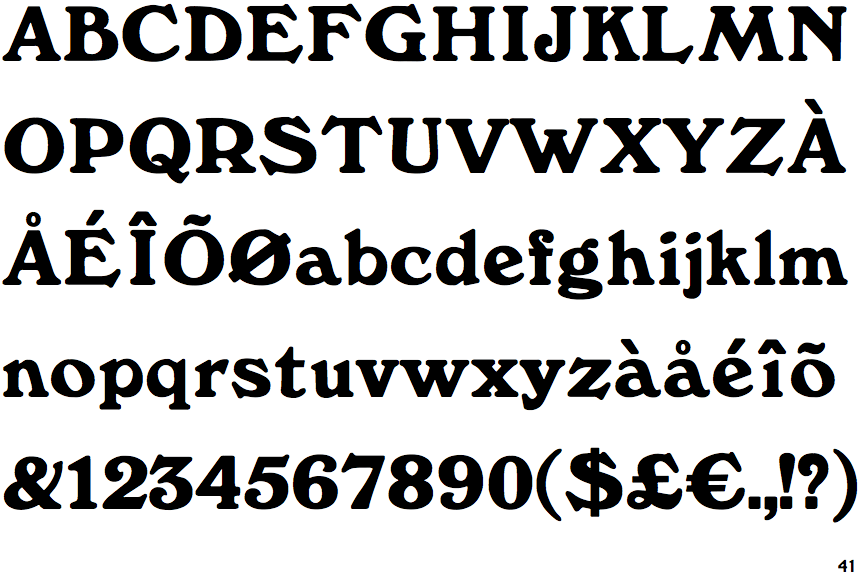
Windsor Bold Font
Windsor Bold Font - You can find more information about windsor bold and it's character map in the sections. Web windsor bold is a bold truetype font. Web windsor is an unusual design cut by stephenson blake in 1905. View sample text, character map, user rating and review for windsor bold Web download windsor bold for free. 0 users have given the font a rating of 0.0 out of 5. Windsor is a bold face with heavy rounded serifs and strong diagonal stress. Web windsor™ bold | fonts.com. It has been downloaded 202 times. View sample text, character map, user rating and review for windsor bold
Web windsor is an unusual design cut by stephenson blake in 1905. Serif, art nouveau, old style serif, display. You can find more information about windsor bold and it's character map in the sections. Web windsor bold is a bold truetype font. Capitals “m” and “w” are widely splayed, “p” and “r” have very. Web download windsor bold for free. View sample text, character map, user rating and review for windsor bold Web windsor™ bold | fonts.com. 0 users have given the font a rating of 0.0 out of 5. Windsor is a bold face with heavy rounded serifs and strong diagonal stress.
Web windsor bold is a bold truetype font. Web download windsor bold for free. Web windsor™ bold | fonts.com. 0 users have given the font a rating of 0.0 out of 5. Serif, art nouveau, old style serif, display. You can find more information about windsor bold and it's character map in the sections. Web windsor is an unusual design cut by stephenson blake in 1905. View sample text, character map, user rating and review for windsor bold Web download windsor bold for free. It has been downloaded 202 times.
Windsor is a bold face with heavy rounded serifs and strong diagonal stress. Web windsor is an unusual design cut by stephenson blake in 1905. View sample text, character map, user rating and review for windsor bold 0 users have given the font a rating of 0.0 out of 5. Web windsor™ bold | fonts.com.
Web windsor bold is a bold truetype font. Web windsor™ bold | fonts.com. Windsor is a bold face with heavy rounded serifs and strong diagonal stress. You can find more information about windsor bold and it's character map in the sections. View sample text, character map, user rating and review for windsor bold
You can find more information about windsor bold and it's character map in the sections. Web windsor is an unusual design cut by stephenson blake in 1905. Web download windsor bold for free. Web windsor™ bold | fonts.com. Capitals “m” and “w” are widely splayed, “p” and “r” have very.
View sample text, character map, user rating and review for windsor bold Serif, art nouveau, old style serif, display. Web download windsor bold for free. It has been downloaded 202 times. Web windsor is an unusual design cut by stephenson blake in 1905.
Web download windsor bold for free. You can find more information about windsor bold and it's character map in the sections. Web windsor™ bold | fonts.com. Web windsor is an unusual design cut by stephenson blake in 1905. It has been downloaded 202 times.
Web windsor is an unusual design cut by stephenson blake in 1905. Web download windsor bold for free. Serif, art nouveau, old style serif, display. Windsor is a bold face with heavy rounded serifs and strong diagonal stress. You can find more information about windsor bold and it's character map in the sections.
Web download windsor bold for free. You can find more information about windsor bold and it's character map in the sections. View sample text, character map, user rating and review for windsor bold View sample text, character map, user rating and review for windsor bold Serif, art nouveau, old style serif, display.
It has been downloaded 202 times. Web windsor is an unusual design cut by stephenson blake in 1905. 0 users have given the font a rating of 0.0 out of 5. View sample text, character map, user rating and review for windsor bold Windsor is a bold face with heavy rounded serifs and strong diagonal stress.
You Can Find More Information About Windsor Bold And It's Character Map In The Sections.
Web windsor is an unusual design cut by stephenson blake in 1905. Web windsor™ bold | fonts.com. View sample text, character map, user rating and review for windsor bold Web download windsor bold for free.
Capitals “m” and “w” are widely splayed, “p” and “r” have very. Windsor is a bold face with heavy rounded serifs and strong diagonal stress. Serif, art nouveau, old style serif, display. 0 users have given the font a rating of 0.0 out of 5.